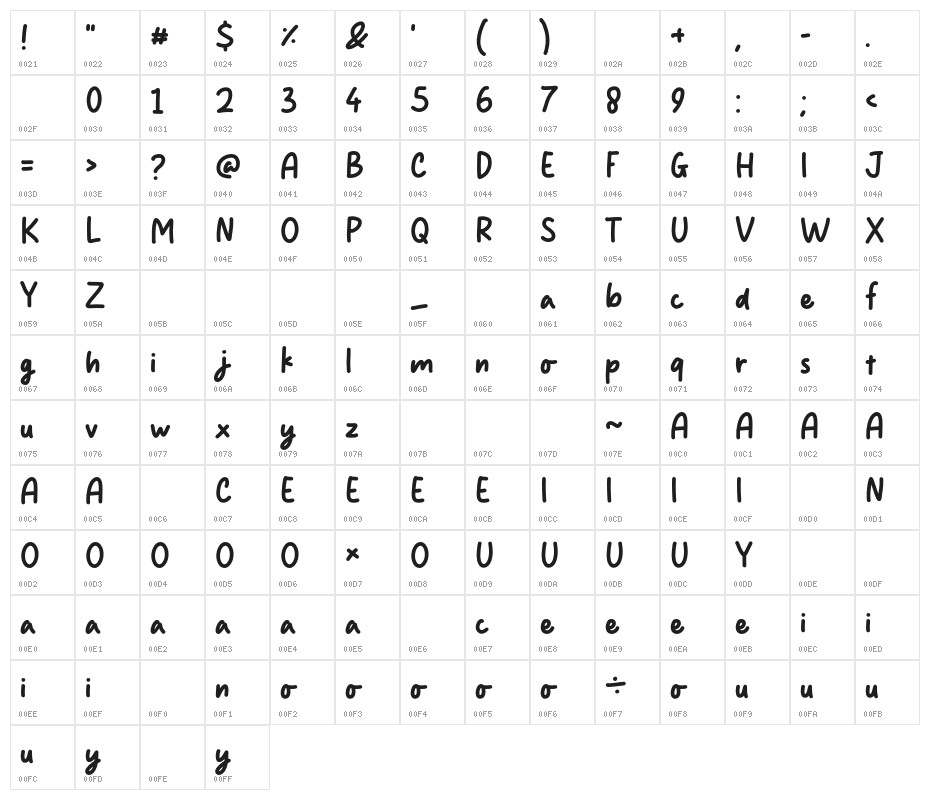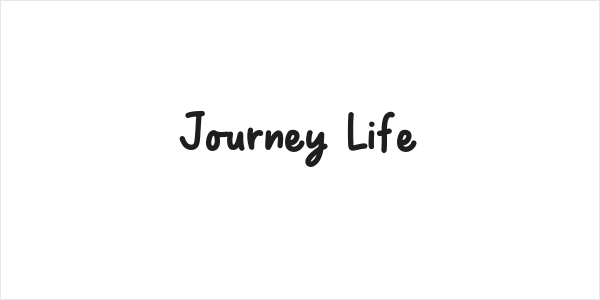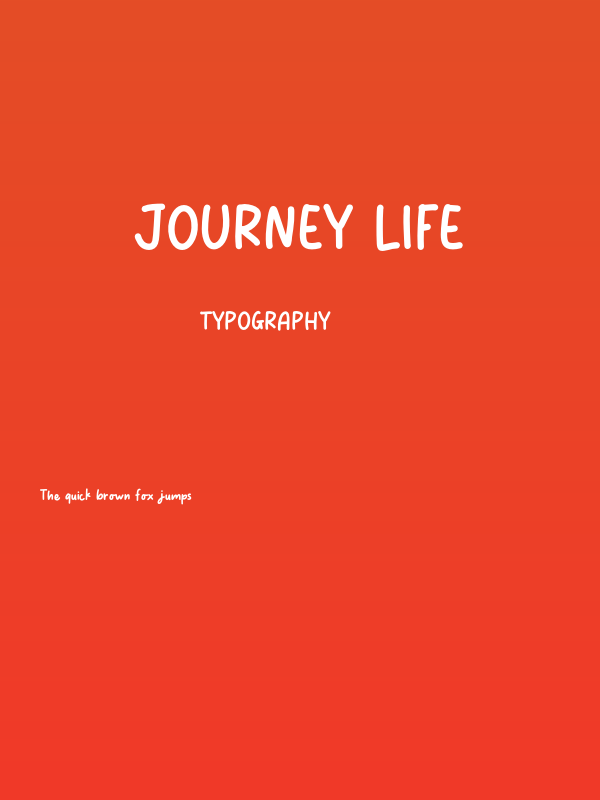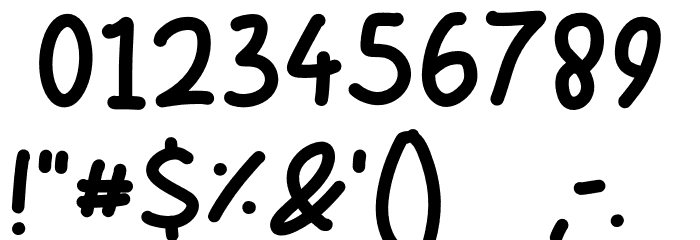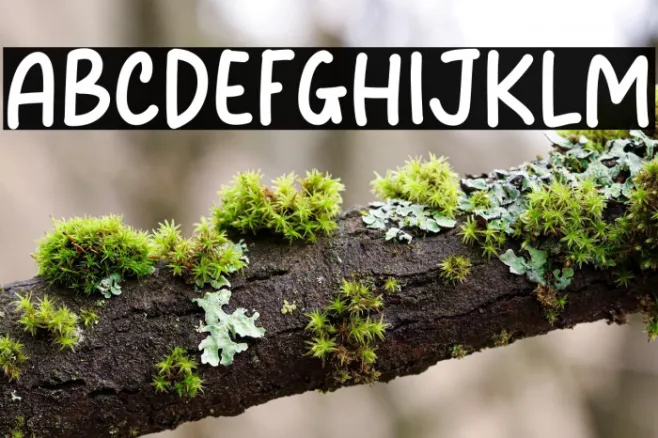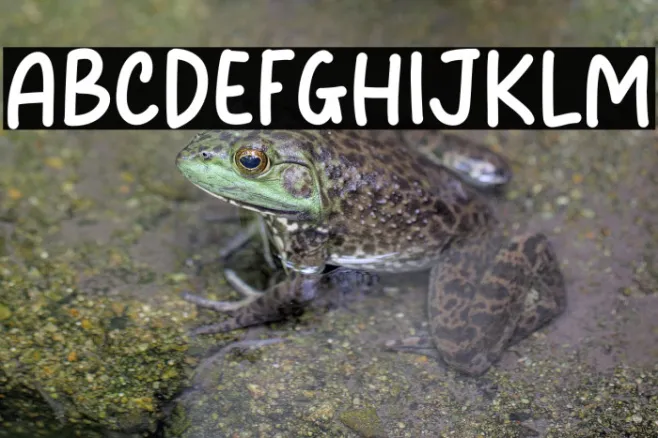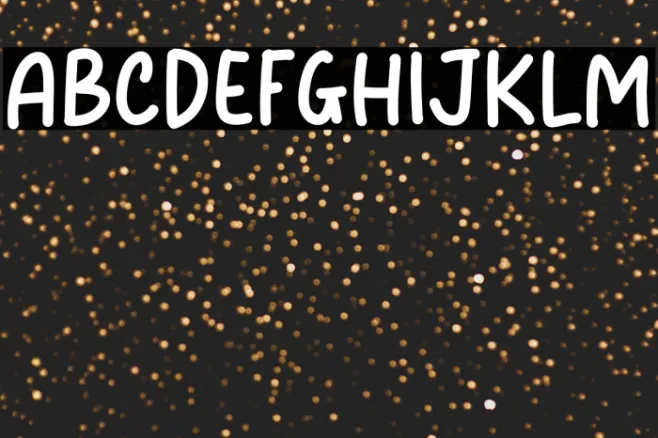
Journey Life Font
Journey Life Description
This font exhibits a playful and casual handwritten style, characterized by its smooth, rounded edges and consistent stroke width. The letters are slightly slanted, adding a dynamic and informal touch. Uppercase and lowercase letters are well-proportioned, with a friendly and approachable appearance. The numerals and special characters maintain the same casual aesthetic, making the font versatile for various uses. Its legibility is enhanced by the clear distinction between each character, while the overall design exudes a sense of warmth and personality.
| Use Case | Headlines, Informal text, Personal projects |
| Proposed Projects | Ideal for greeting cards, children's books, personal blogs, and informal branding. |